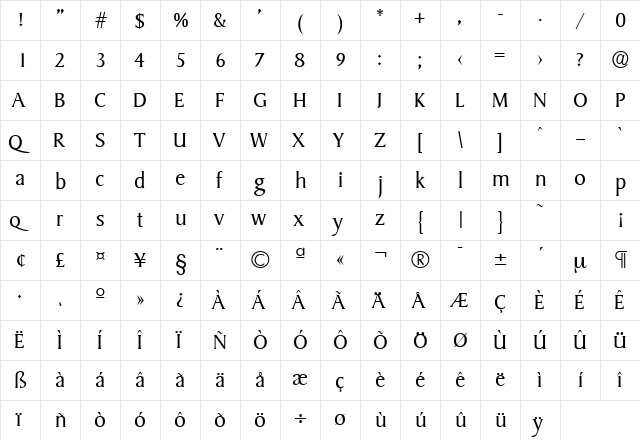
Sydney-Serial-Light Light
Sydney-Serial-Light is a composed and adaptable typeface that performs quietly and consistently across a wide range of design contexts. Its slender proportions lend an understated elegance to any composition.